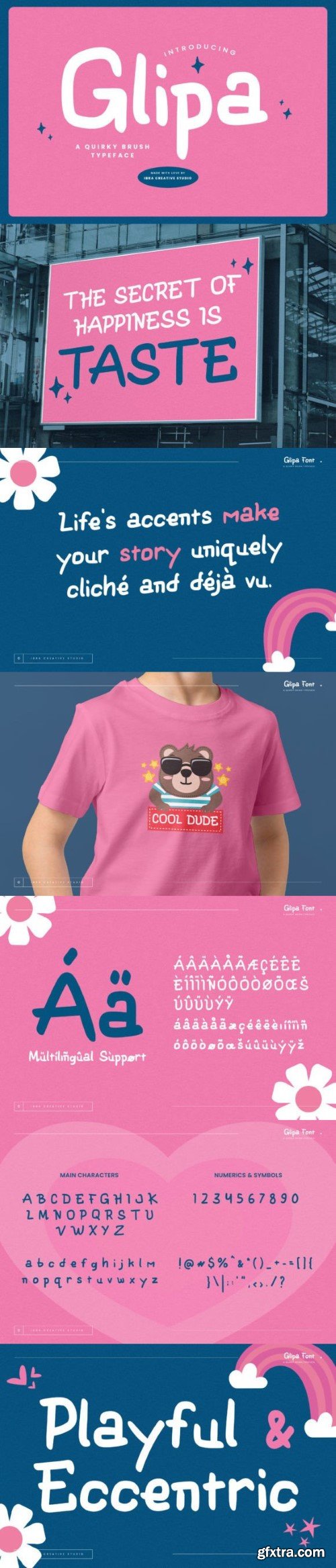
Glipa Font
Glipa, a quirky brush typeface, injects a playful and eccentric spirit into the realm of typography with its whimsical strokes and unconventional letterforms. Each character dances on the line between spontaneity and structure, creating a dynamic and unique visual experience. The irregularities in the brush strokes add a touch of handmade charm, making Glipa an ideal choice for designs that seek to break free from the conventional and embrace a sense of individuality.